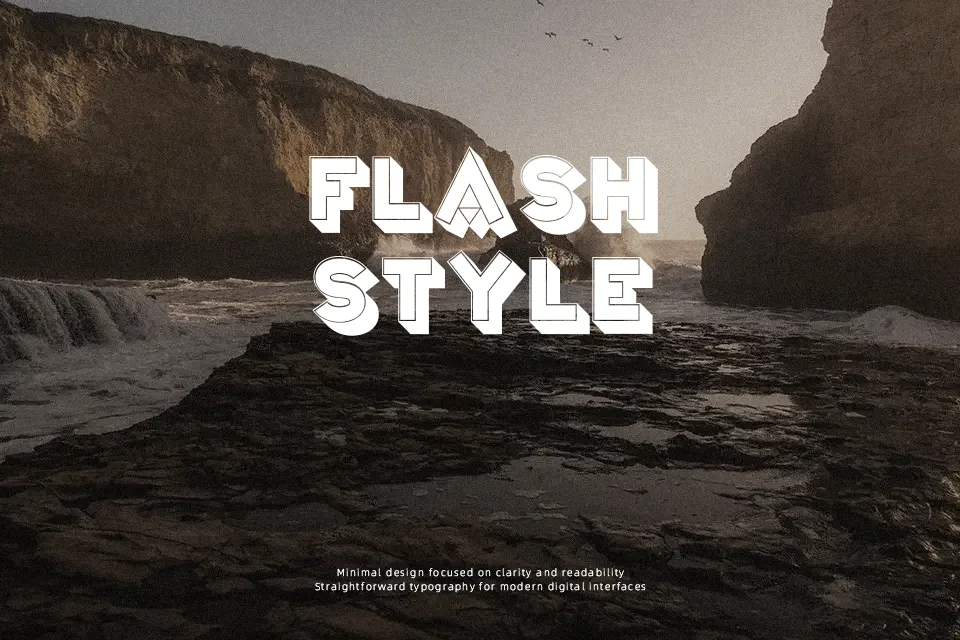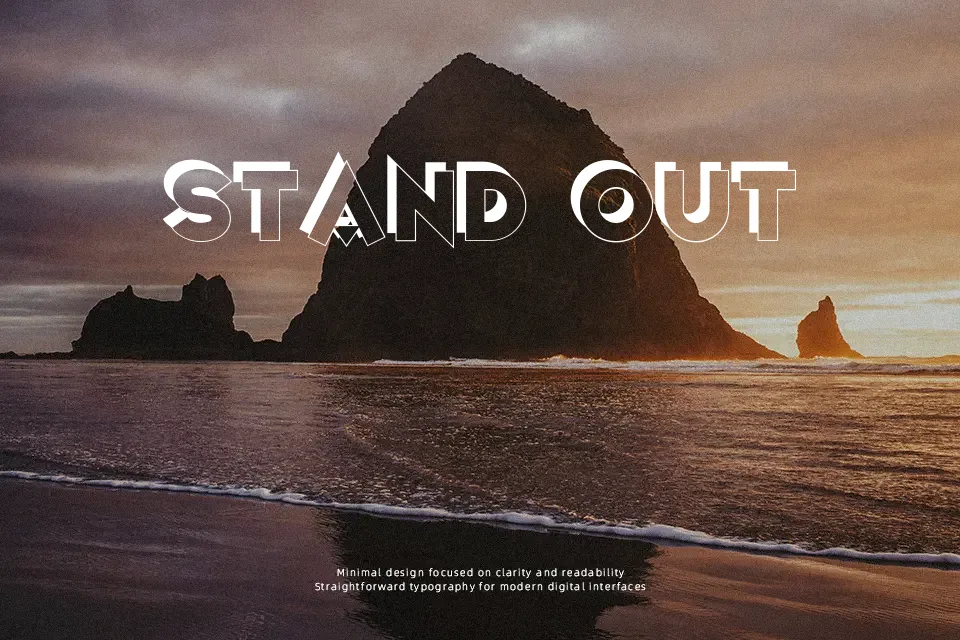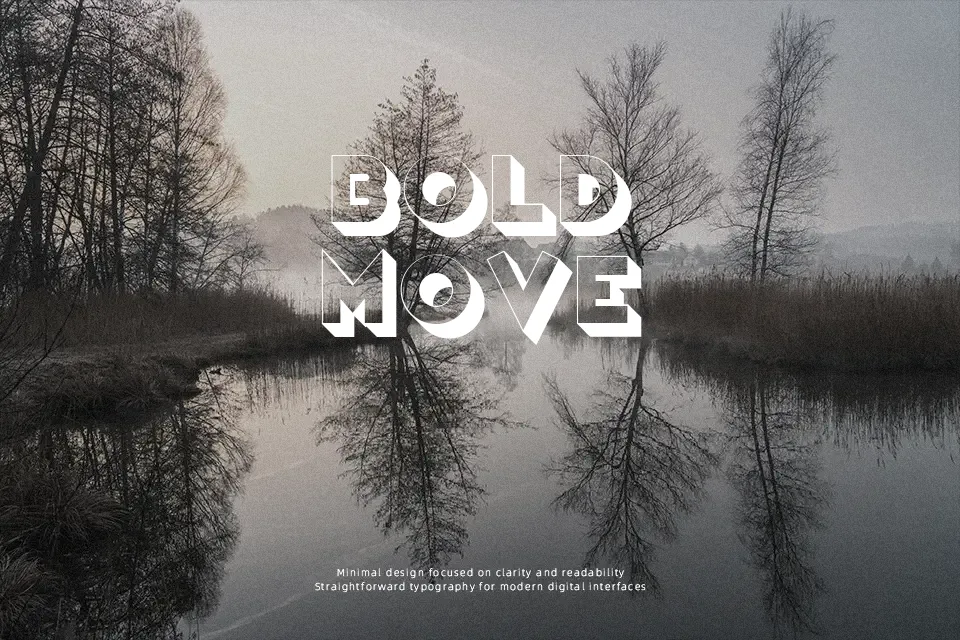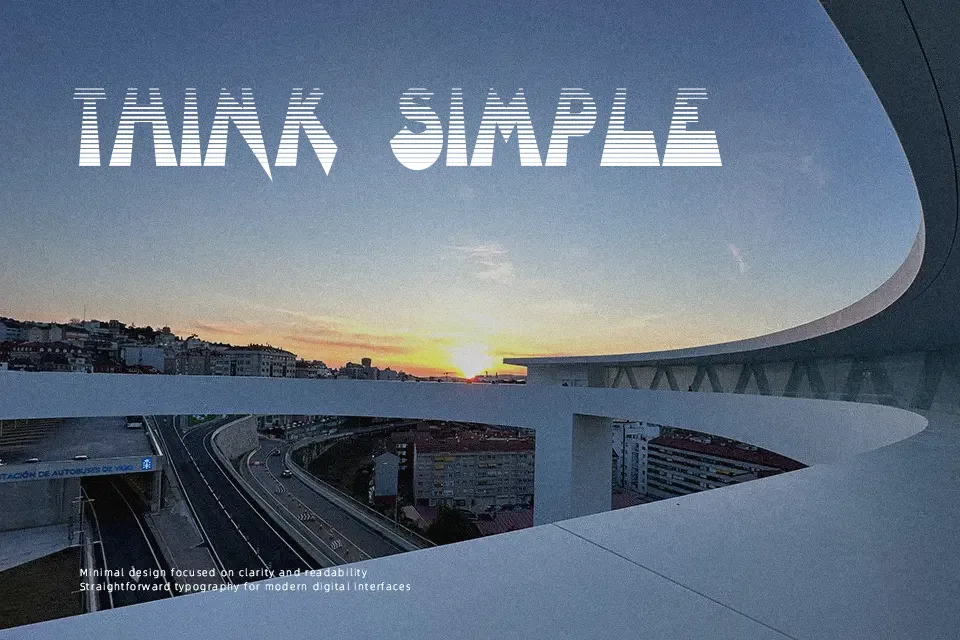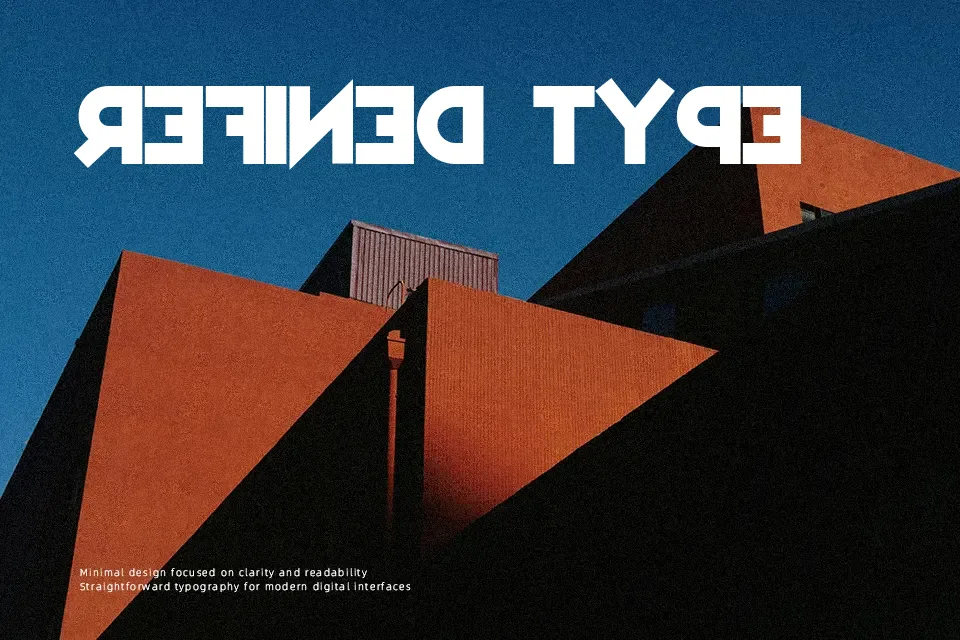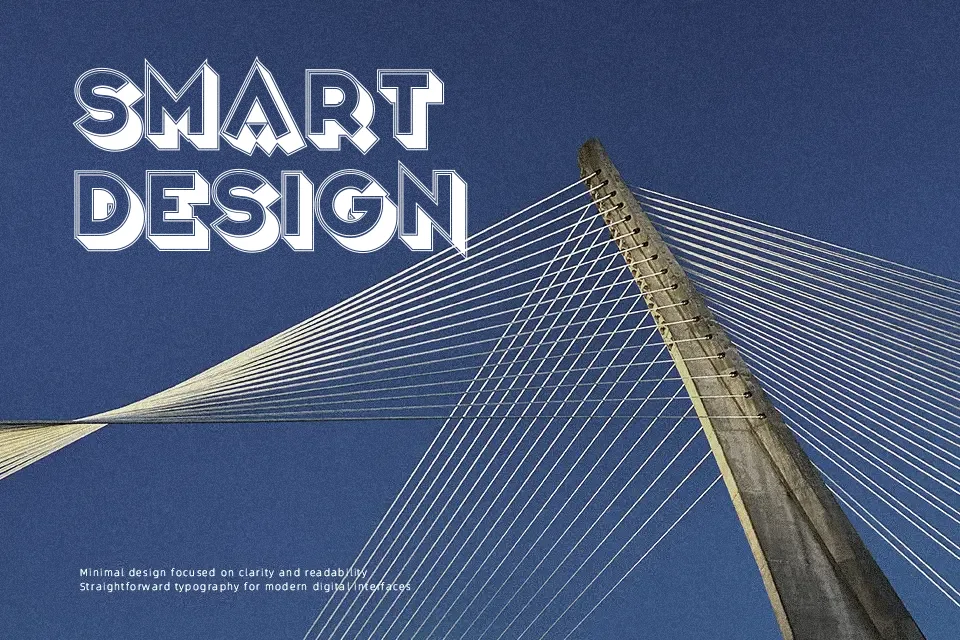
Variété Font
Designed by Peter Wiegel
Variété Font commands attention through geometric proportions, heavy display strokes, and pronounced theatrical styling reminiscent of classic cabaret and variety show lettering. Broad letterforms and balanced internal spacing give the capitals strong presence, while the intricate decorative treatment preserves legibility primarily across large headline compositions. Stroke consistency remains solid throughout the set, but internal detailing becomes congested when scaled down. The typeface performs best when displayed at larger sizes where its retro decorative contours can be appreciated. However, the dense structure and decorative emphasis make it unsuitable for continuous reading or dense editorial layouts.
Best For: vintage event posters, cabaret signage, entertainment branding, retro merchandise packaging
Not Ideal For: continuous reading, mobile body text, legal documents, dense editorial layouts
Perfect for branding, headline, and packaging, with a bold and decorative style.